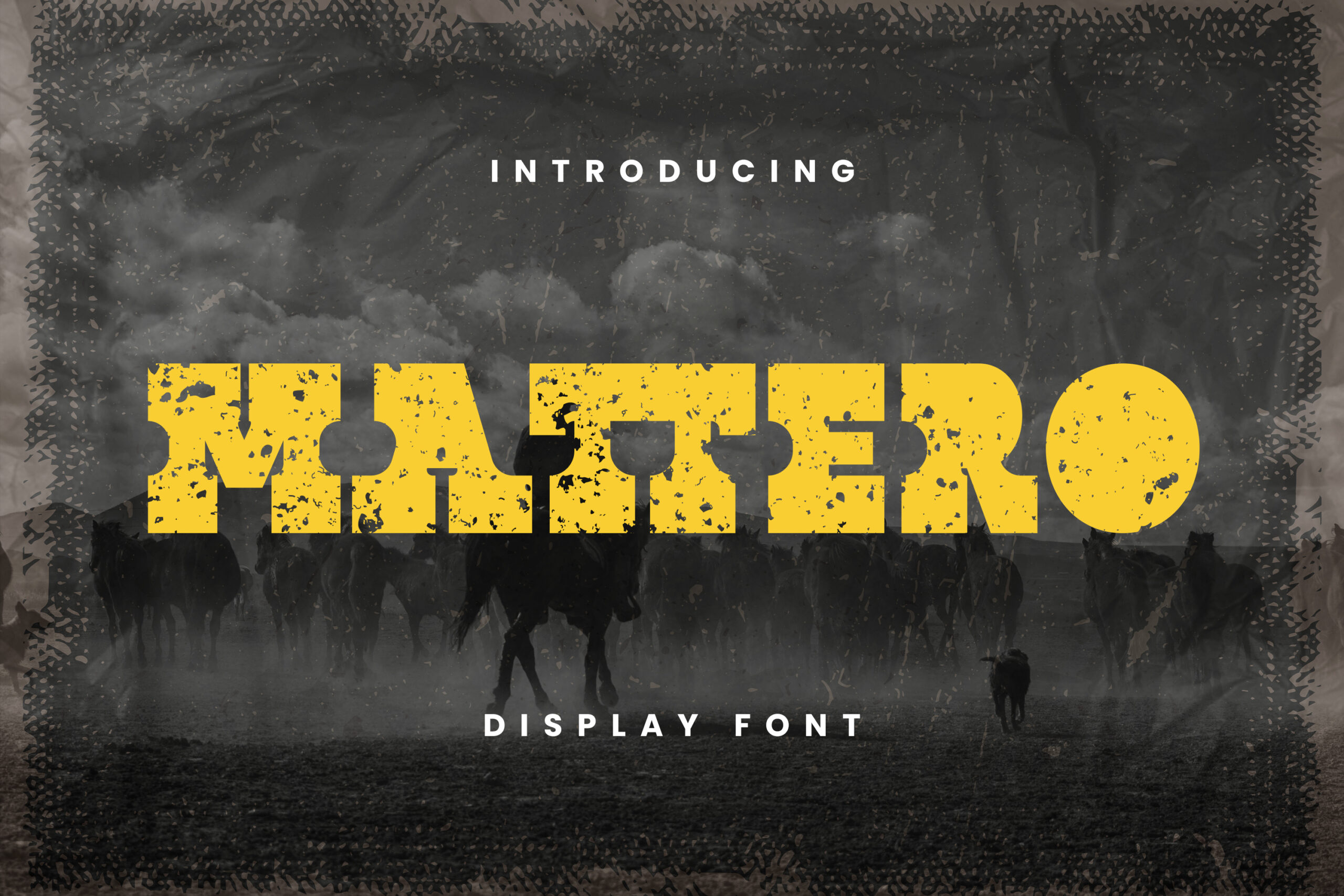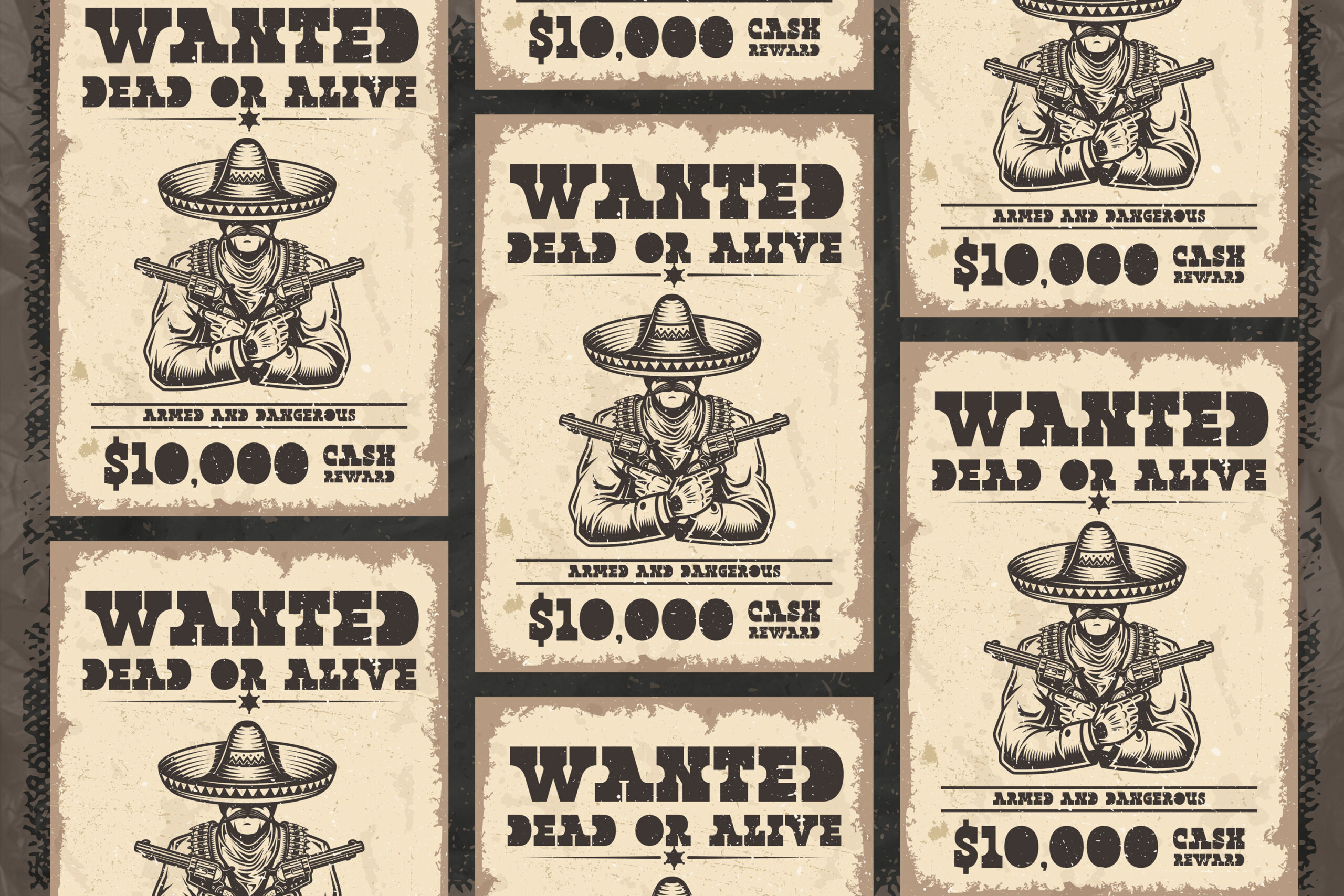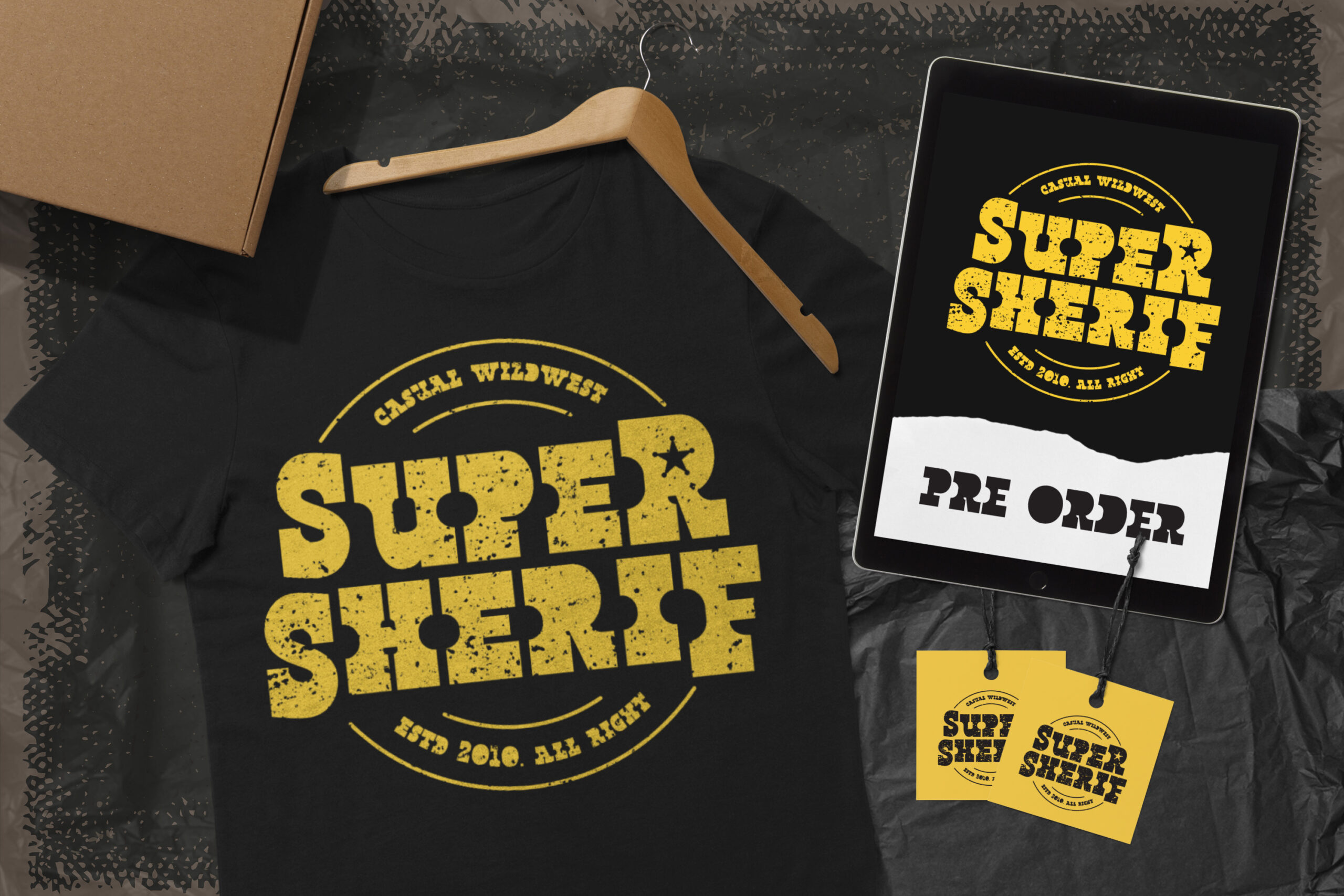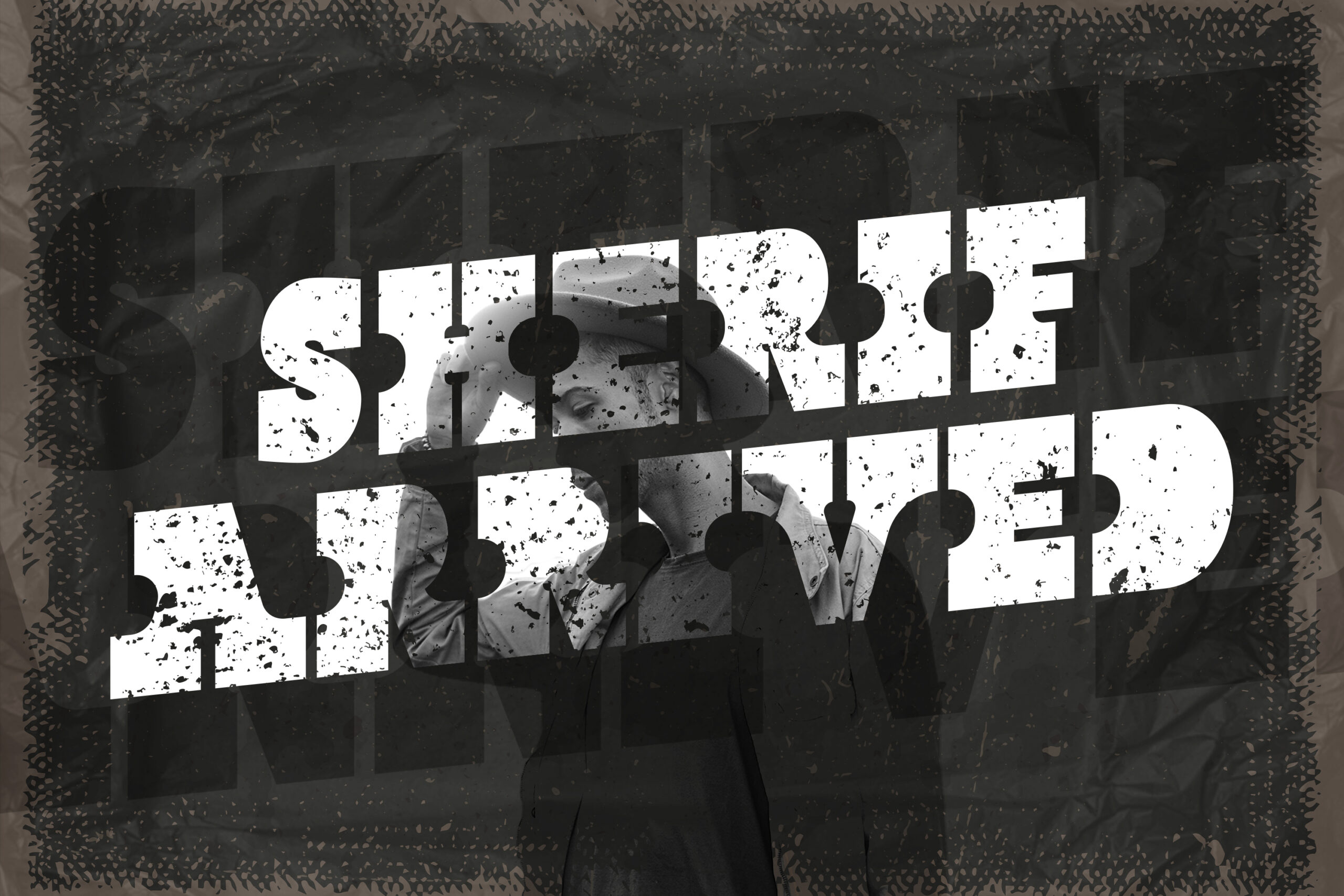
Mattero is a bold and rugged display font inspired by the spirit of the Wild West. Its strong slab serif structure is enhanced with a distressed texture that mimics the grit and dust of cowboy towns and vintage wanted posters. The unique bullet hole-style counters add a playful yet fearless personality, making it the perfect typeface for Western-themed projects, apparel, signage, or branding that aims to feel tough, loud, and adventurous.
Equipped with uppercase, lowercase, multilingual support, and full punctuation, Mattero offers both style and versatility. Whether you’re designing a retro rodeo flyer, a cowboy-themed t-shirt, or bold merchandise branding, Mattero delivers impact with a rough charm and a nostalgic echo of frontier legends.